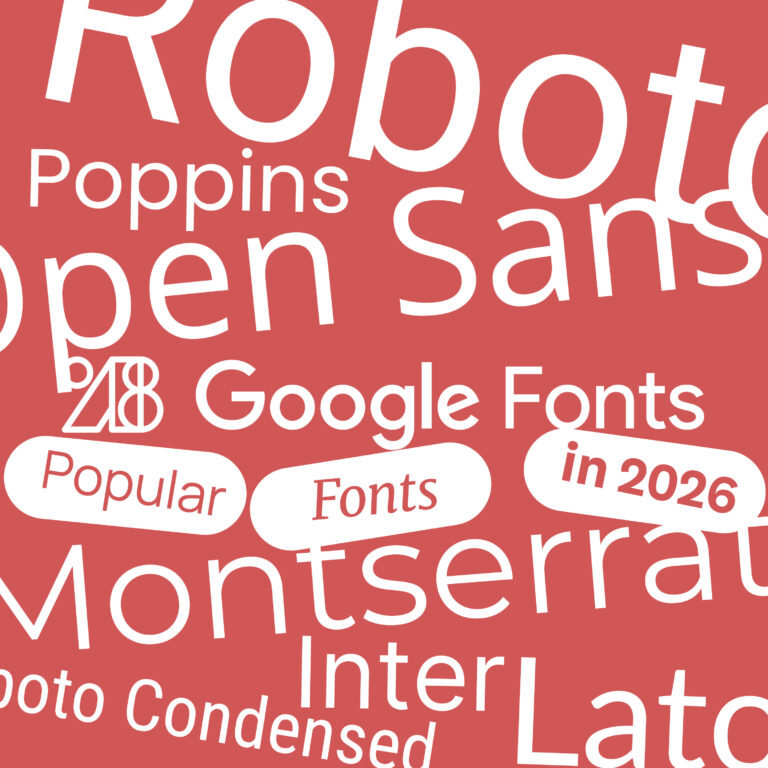
Google Fonts Analytics: Most Popular Fonts 2026
Google Fonts is still one of the easiest places to find free, reliable and web-ready typefaces. Whether you are designing a website, building a UI system, preparing a brand identity or creating social media graphics, Google Fonts gives you a huge library of typefaces that can be used without licensing headaches.
But popularity alone does not always mean a font is the best choice for your project.
Google Fonts Analytics shows which font families are used heavily across the web, but designers also need to ask a second question: why are these fonts popular, and where do they actually work well?
In this guide, we look at the most popular Google Fonts in 2026 and explain how to use them in real design projects.
What does “most popular” mean on Google Fonts?
When people talk about the most popular Google Fonts, they usually mean fonts that are widely requested, embedded and used across websites. These are not always the newest or trendiest fonts. In fact, many of the most popular Google Fonts are popular because they are safe, readable, flexible and already trusted by millions of websites.
That is why fonts like Roboto, Open Sans, Lato and Montserrat keep appearing near the top. They are not always the most exciting choices, but they solve real typography problems.
A popular Google Font usually has a few things in common:
- It works well on screens.
- It has multiple weights.
- It supports many languages.
- It is readable in body text.
- It can be used in UI and web design.
- It loads easily through Google Fonts.
- It feels familiar enough for everyday use.
For designers, the trick is knowing when to use these popular fonts and when to choose something more distinctive.
Quick list: Most popular Google Fonts in 2026
Here are some of the most widely used and most useful Google Fonts to know in 2026:
- Roboto
- Open Sans
- Montserrat
- Lato
- Poppins
- Inter
- Roboto Condensed
- Roboto Mono
- Oswald
- Noto Sans
- Raleway
- DM Sans
- Work Sans
- Source Sans 3
- Playfair Display
- Merriweather
- Nunito Sans
- IBM Plex Sans
- Rubik
- Space Grotesk
Some of these are popular because they are used everywhere. Others are popular because designers keep choosing them for newer websites, SaaS products, editorial layouts and branding systems.
1. Roboto
Roboto is still one of the most important Google Fonts. It became widely known through Android and Google products, but its popularity goes far beyond that.
Roboto works because it is neutral, readable and flexible. It has a mechanical structure, but the curves are open enough to keep the font from feeling too cold. This makes it useful for interfaces, apps, dashboards, websites and product systems.
Use Roboto for:
- Mobile apps
- Android-style interfaces
- Dashboards
- Admin panels
- SaaS products
- Documentation
- Clean business websites
Why it is popular? Roboto is safe. It may not make a design feel unique, but it almost never breaks the design either. It is especially useful when you need a reliable sans-serif that can handle many text sizes and many interface states.
Best for: Product UI and functional web design.
2. Open Sans
Open Sans has been one of the classic Google Fonts for years. It is friendly, readable and extremely versatile.
It does not feel as modern as some newer UI fonts, but it still works well for websites that need clarity more than personality. Open Sans is especially useful for body text, blogs, corporate websites, help pages and content-heavy layouts.
Use Open Sans for:
- Blog layouts
- Business websites
- Help centers
- Long-form content
- Corporate pages
- Educational websites
Why it is popular? Open Sans is easy to read and easy to use. It has a soft, approachable tone, which makes it useful for projects that should feel clear and trustworthy.
Where it can feel weak? It is very familiar. If you want a fresh, distinctive brand identity, Open Sans may feel too safe or too common.
Best for: Readable websites and practical body text.
3. Montserrat
Montserrat is one of the most recognizable Google Fonts. It has a strong geometric structure and a confident visual tone, which makes it especially popular for headings, landing pages, posters and brand systems.
It is not always the best body text font, but it is very effective when you want a design to feel bold, clean and modern.
Use Montserrat for:
- Landing page headlines
- Branding systems
- Posters
- Social media graphics
- Presentation covers
- Startup websites
- Hero sections
Why it is popular? Montserrat gives designs a strong modern look very quickly. It feels clean and geometric, but not as strict as some older geometric sans-serifs.
Where it can feel weak? In paragraphs or dense UI, Montserrat can feel wide and heavy. It often works better as a headline font than as an all-purpose typography system.
If you want the safest UI choice, start with Inter.
If you want a classic all-purpose font, use Roboto.
If you need strong branding, try Montserrat or Poppins.
If you need long-form readability, use Source Sans 3, Open Sans or Merriweather.
If you want a more modern design voice, try DM Sans or Space Grotesk.
Popularity is useful, but the best font is the one that fits the job.